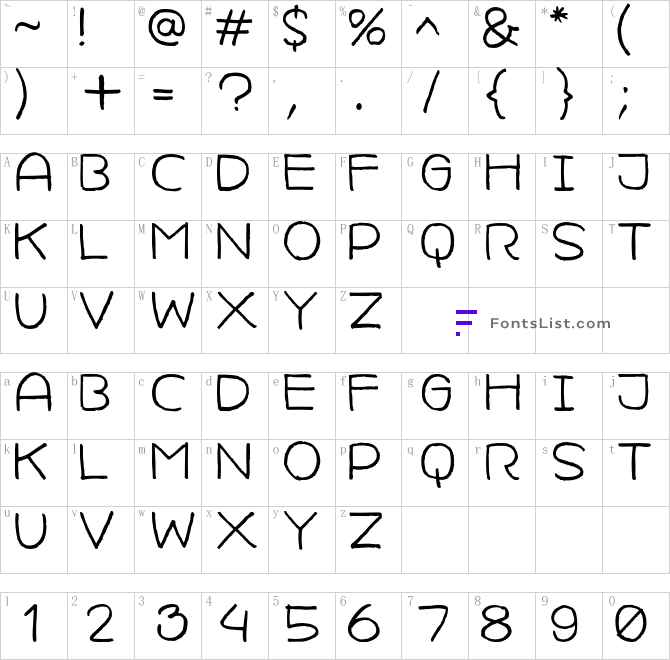
- Font Name:Camille Javal Med
CamilleJaval-Medium.otf is a very beautiful artistic font, CamilleJaval-Medium.otf is widely used in the design and printing of various books and pictures,CamilleJaval-Medium.otf has a strong visual impact,CamilleJaval-Medium.otf is a commonly used font in newspapers, magazines and books, and is used in posters, e-commerce Poster design, store design, logo design, font design and other fields.CamilleJaval-Medium.